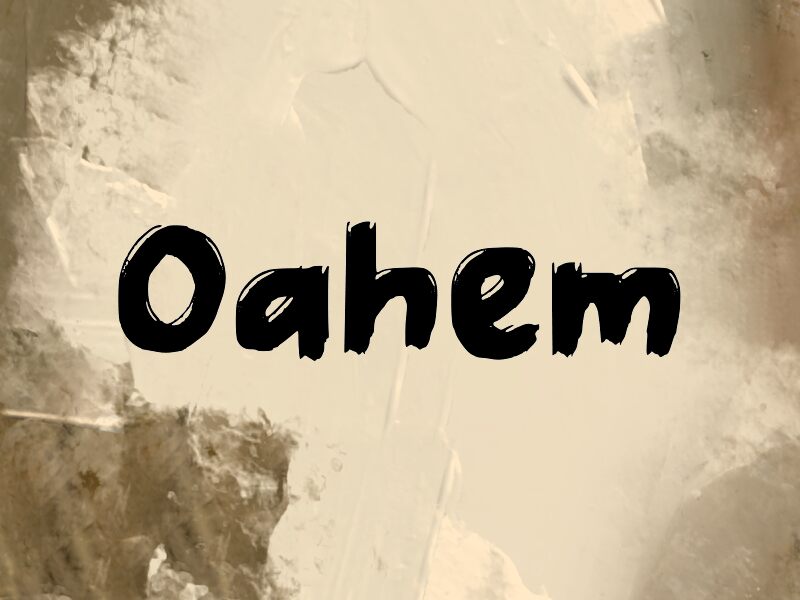
Oahem
Oahem font by wep is a free brush font that looks like it’s been painted in thick, glossy ink and left to dry with all its streaks and bumps intact. The letters are chunky and rounded, but the rough, scratchy edges keep them from feeling too cute—there’s a raw, handmade energy running through every stroke that jumps off the page or screen. It feels like signage scrawled in a hurry, but with just enough control to stay bold and readable.
Using Oahem, this free font shines on gig posters, zines, streetwear graphics, bold social posts, packaging for snacks or drinks, and energetic YouTube thumbnails. Its dense shapes hold up at larger sizes, where the brush texture really shows, while shorter headlines still feel punchy and fun. Pair this typeface with a clean geometric sans for small body text to keep your layouts balanced and easy to scan.